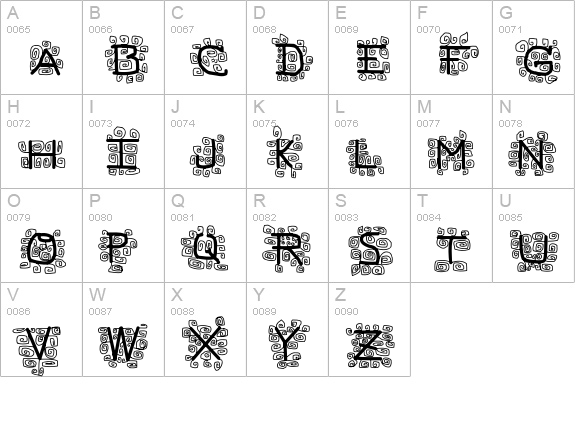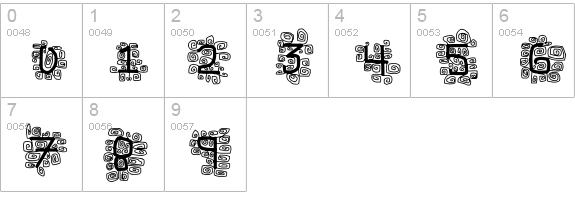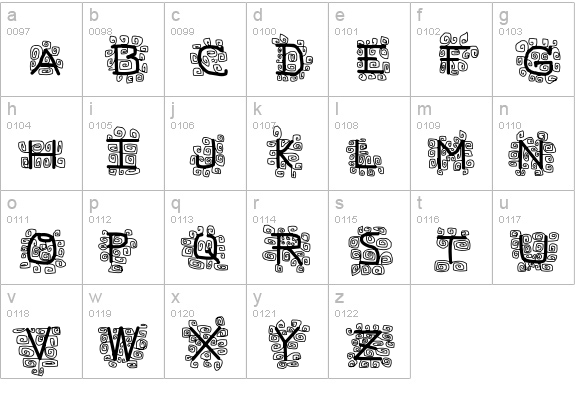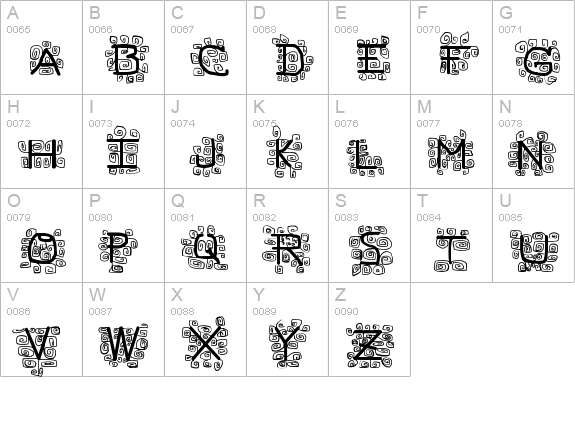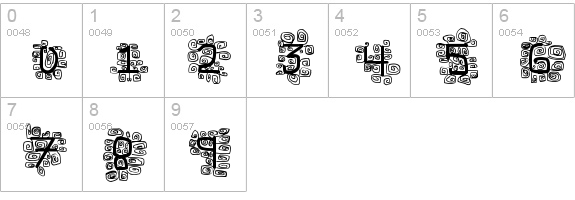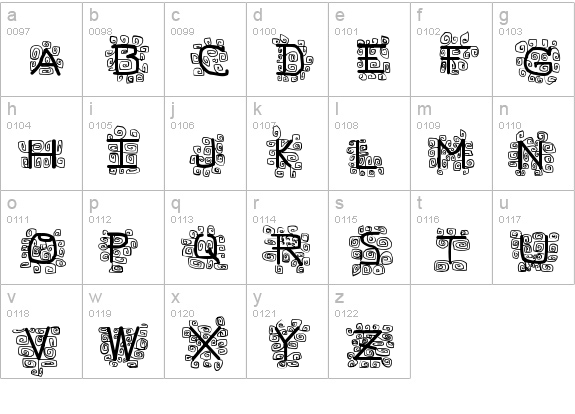
pf_veryverybadfont19 Font Details
Introducing pf_veryverybadfont19, a font that is sure to make a lasting impression with its unique and unconventional style. This font breaks all the rules of traditional typography, daring to be different and standing out from the crowd. With its bold and exaggerated letterforms, pf_veryverybadfont19 exudes a sense of edginess and rebellion. Despite its name, pf_veryverybadfont19 is actually quite good in its own way. It challenges the norm and pushes the boundaries of design, making it perfect for those seeking to make a statement with their creative projects. Whether you're designing a poster, creating a logo, or crafting a bold headline, this font will certainly leave a lasting impact. One of the best things about pf_veryverybadfont19 is that it is available for free. That's right, you can download this font without spending a dime! Simply head over to FontsMarket.com and grab your copy today. With its freely available download, pf_veryverybadfont19 offers accessibility and affordability to designers, allowing them to unleash their creativity without any limitations. So, if you're looking to break away from the ordinary and add a touch of daring to your designs, look no further than pf_veryverybadfont19. Its unconventional style, bold letterforms, and free availability make it the perfect choice for those who want to make a statement. Download it now and let your creativity soar!